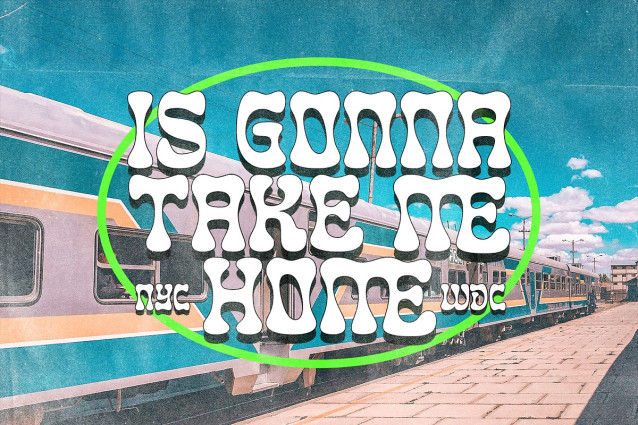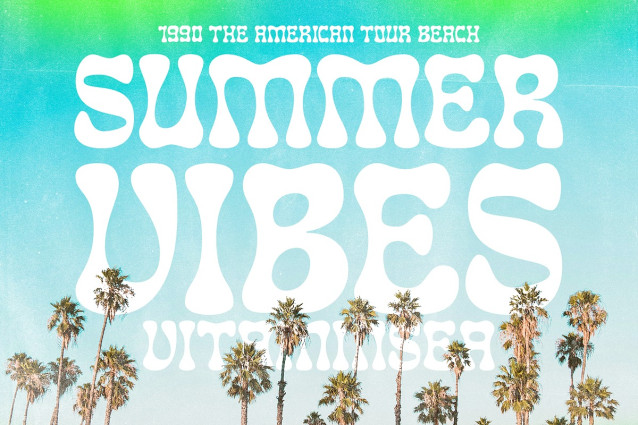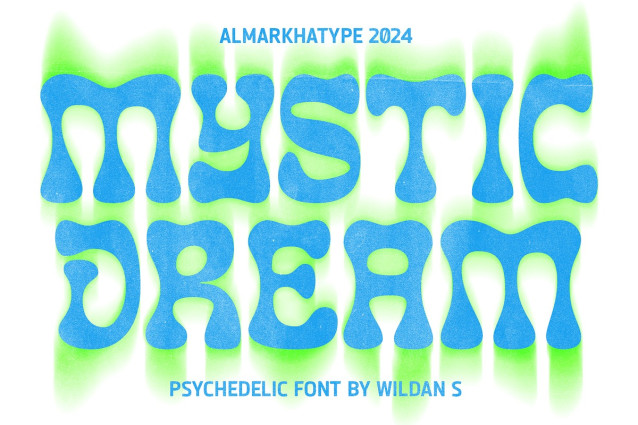
Mystic Dream Font
Mystic Dream Font is an experimental display font inspired by the Otto Eckmann font. Mystic Dream is twisted with a groovy and quirky style, and is designed as an all-caps font. The style of Mystic Dream embraces a retro aesthetic.